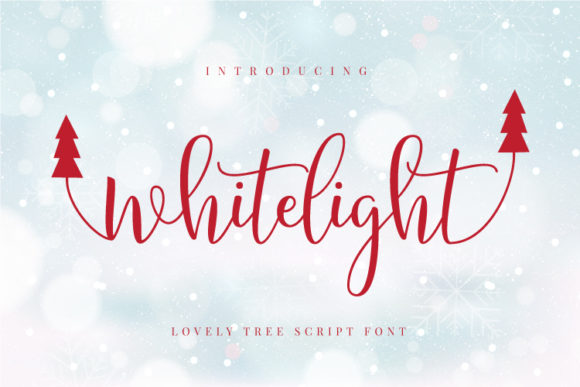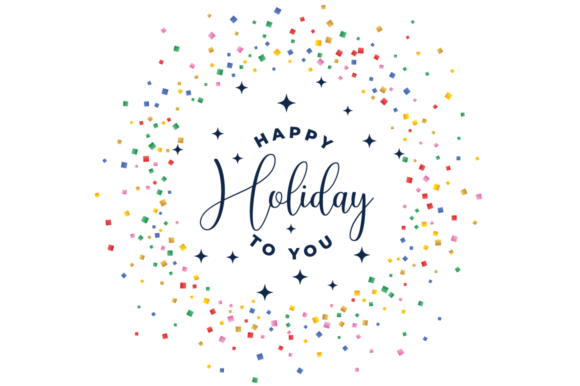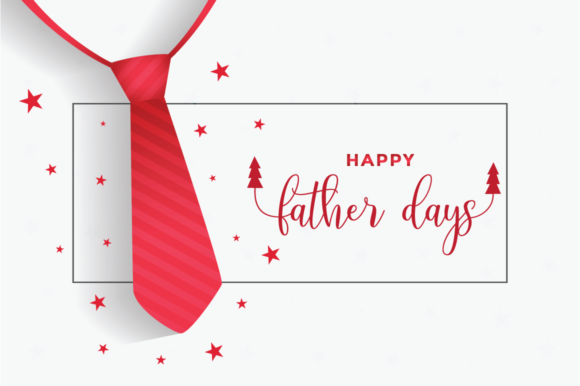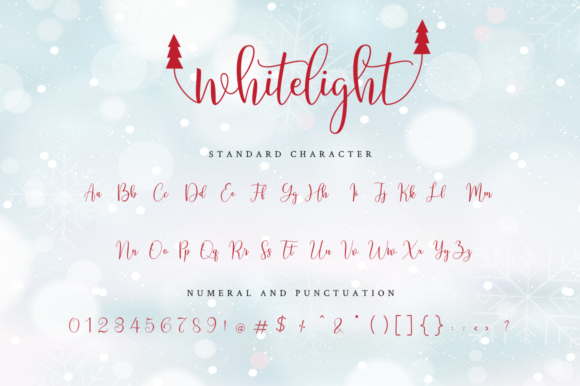
Whitelight
About Whitelight Font
Whitelight is an elegant and flowing script font with a unique theme. It maintains its classy calligraphic influences while feeling contemporary and fresh. Fall in love with this font and bring your projects to the highest levels!This font is PUA encoded which means you can access all of the glyphs and swashes with ease!